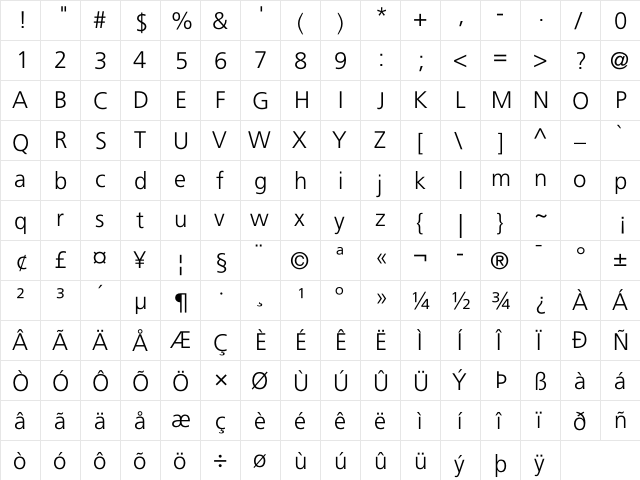
Frutiger LT Com 45 Light Font Preview
Frutiger LT Com 45 Light
Frutiger LT Com 45 Light Font Details
| Style | 45 Light |
| Foundry | Linotype GmbH |
| Designer | Adrian Frutiger |
Design Context for Frutiger LT Com Typeface
Frutiger LT Com is a composed and adaptable typeface that performs quietly and consistently across a wide range of design contexts. The delicate stroke weight brings airiness and refinement to layouts.